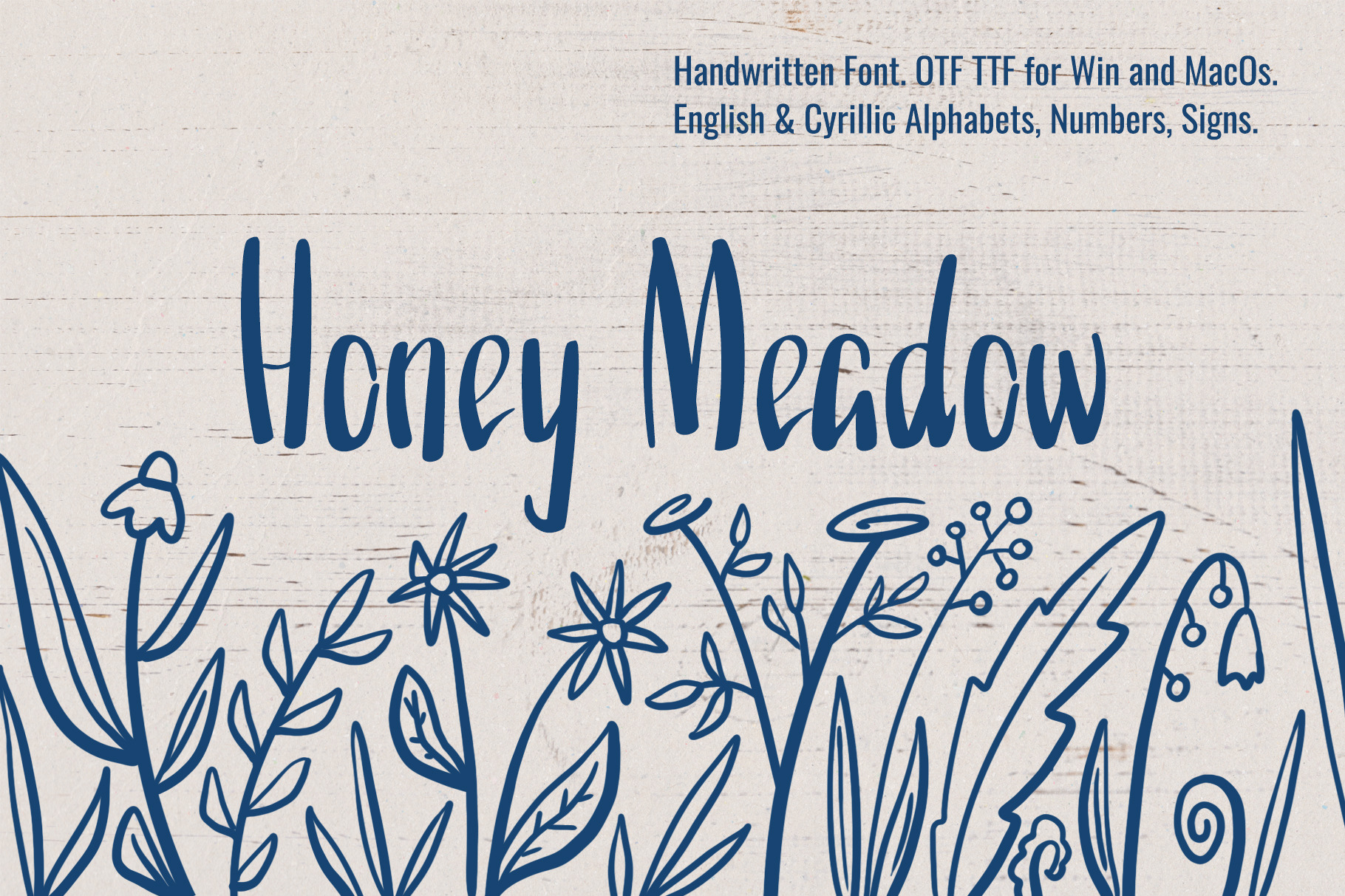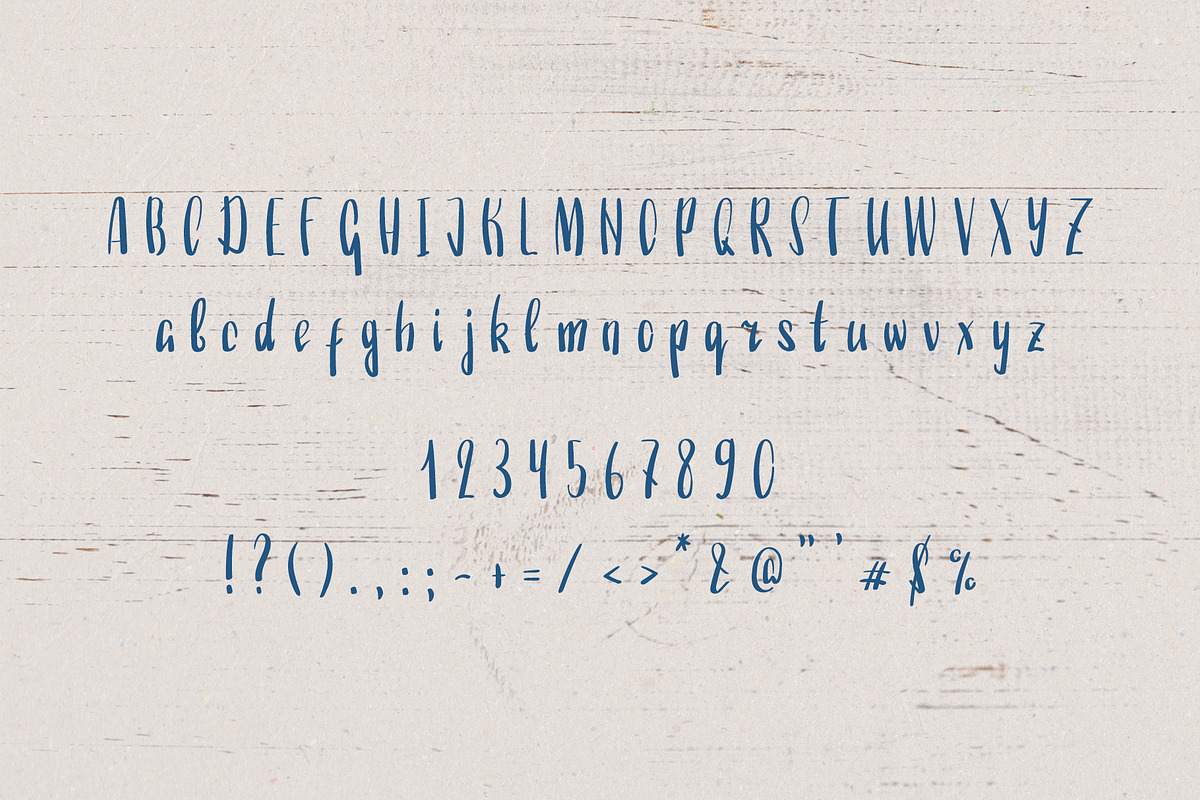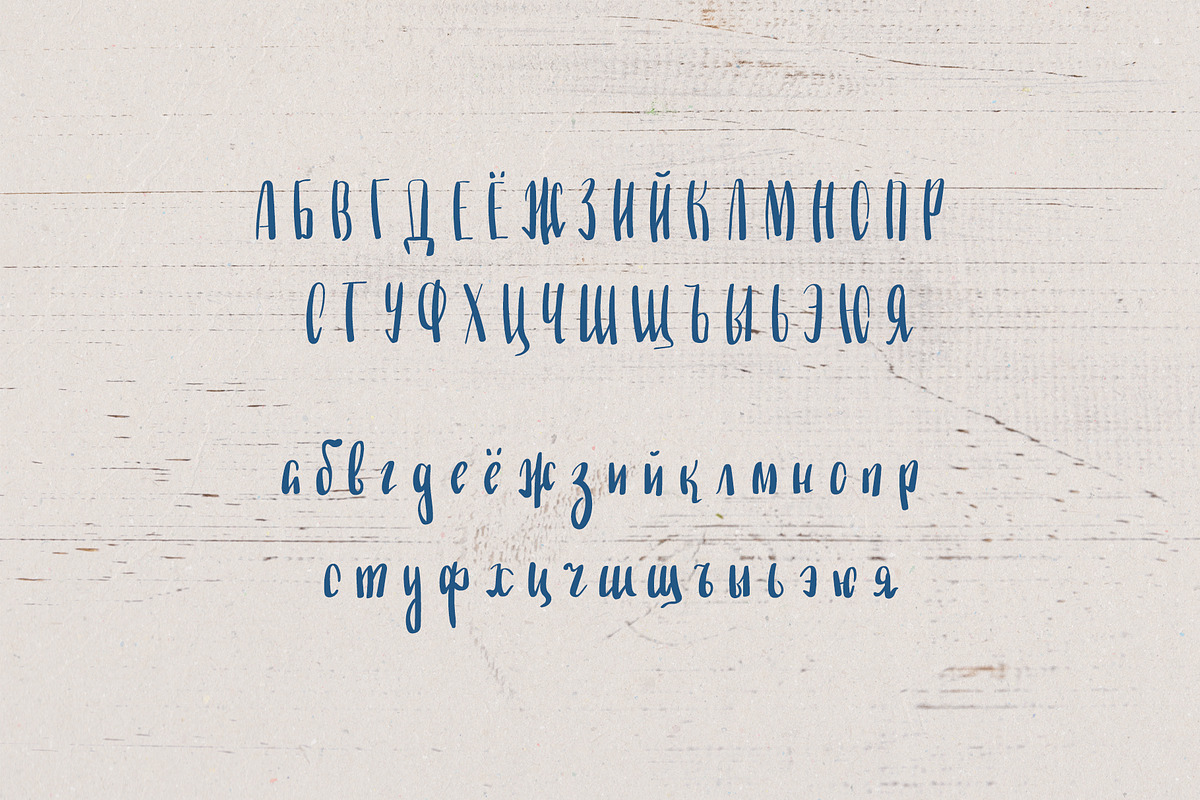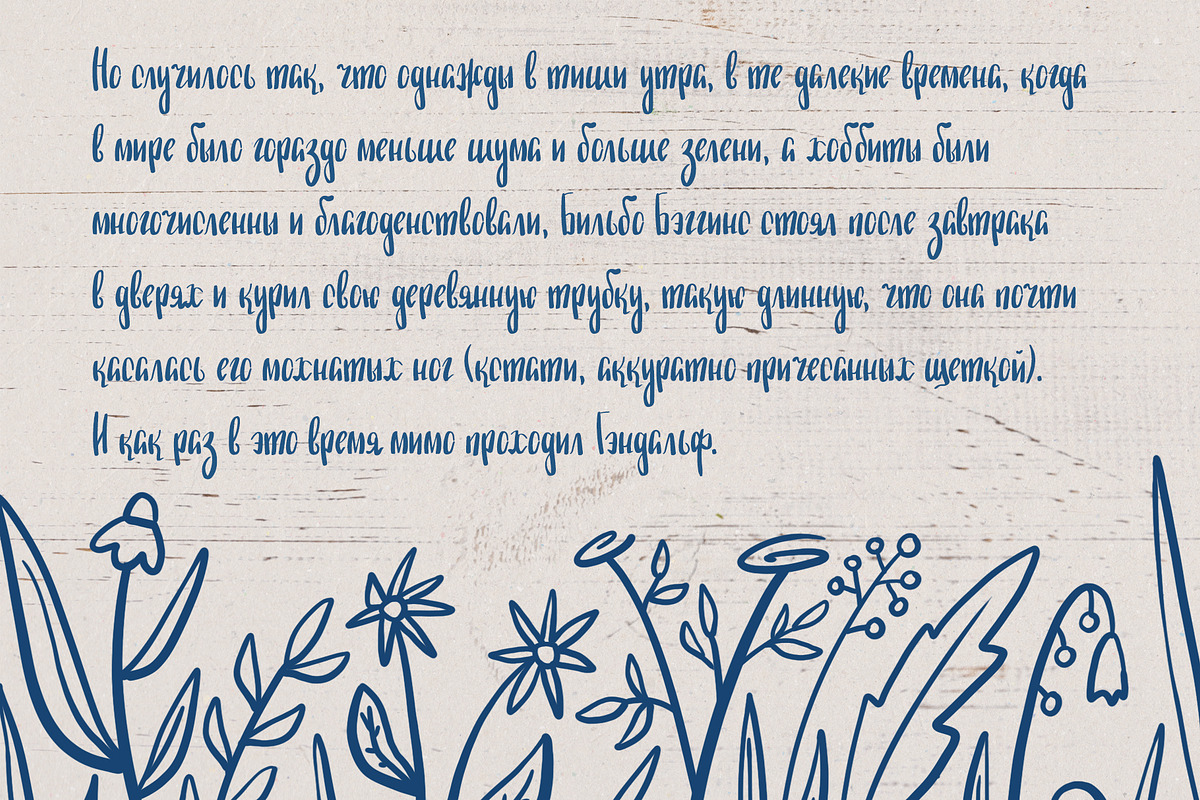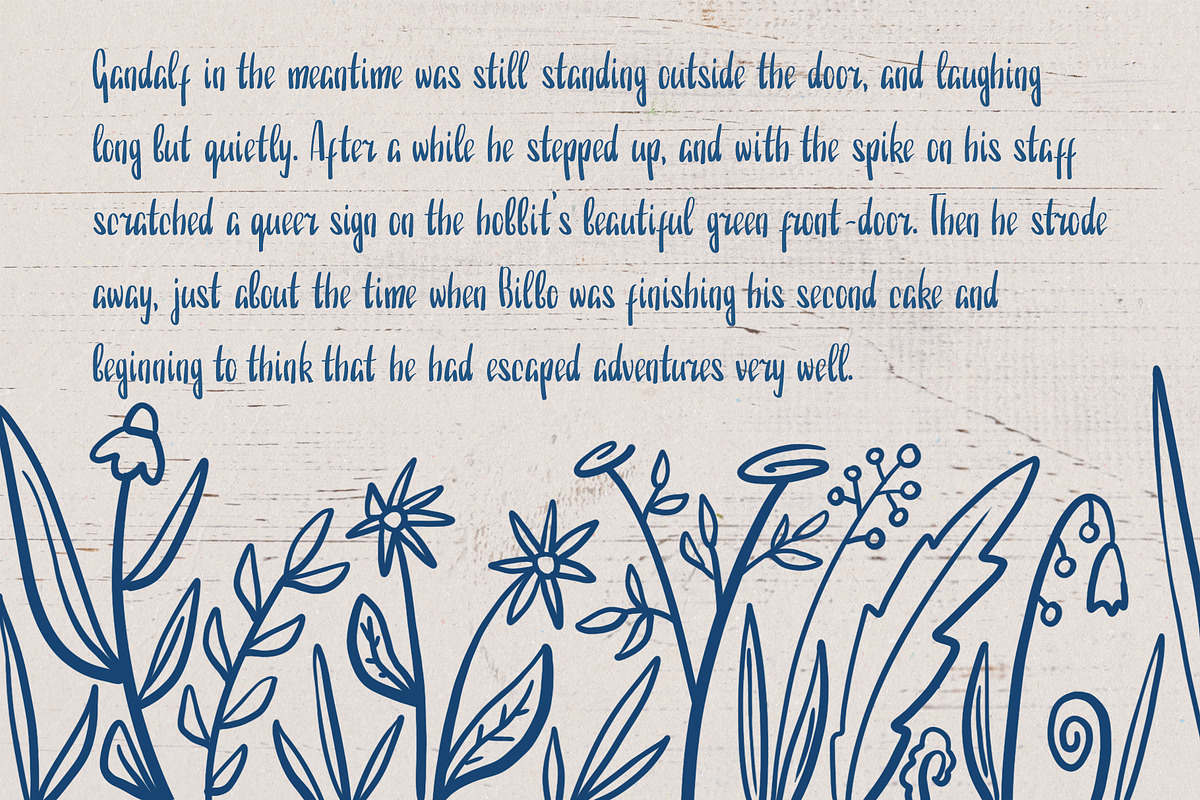
Straight Brushpen Handwritten Font
Honey Meadow font is a straight brushpen script with English and Cyrillic alphabets, numbers, and wide range of punctuation signs. It is made to look cute both as title and text - and it's perfect for children books! Combine it with sans serif fonts, playful scripts, doodles and watercolors!